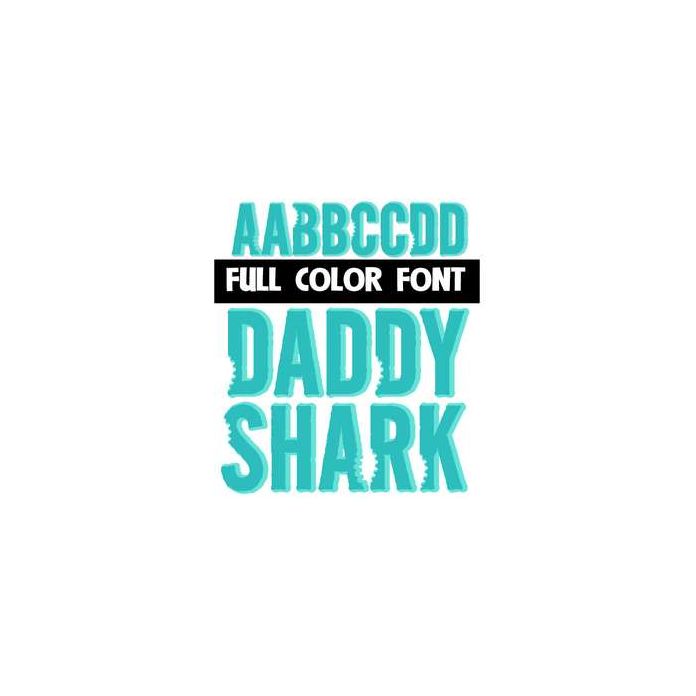
This full-color font features blue letters with shark bites. The lowercase is without. Mix up both cases for best results. This font works best for titles, displays, posters and more. Please note color fonts will show as black in non compatible programs. This font type is compatible with Silhouette Studio.